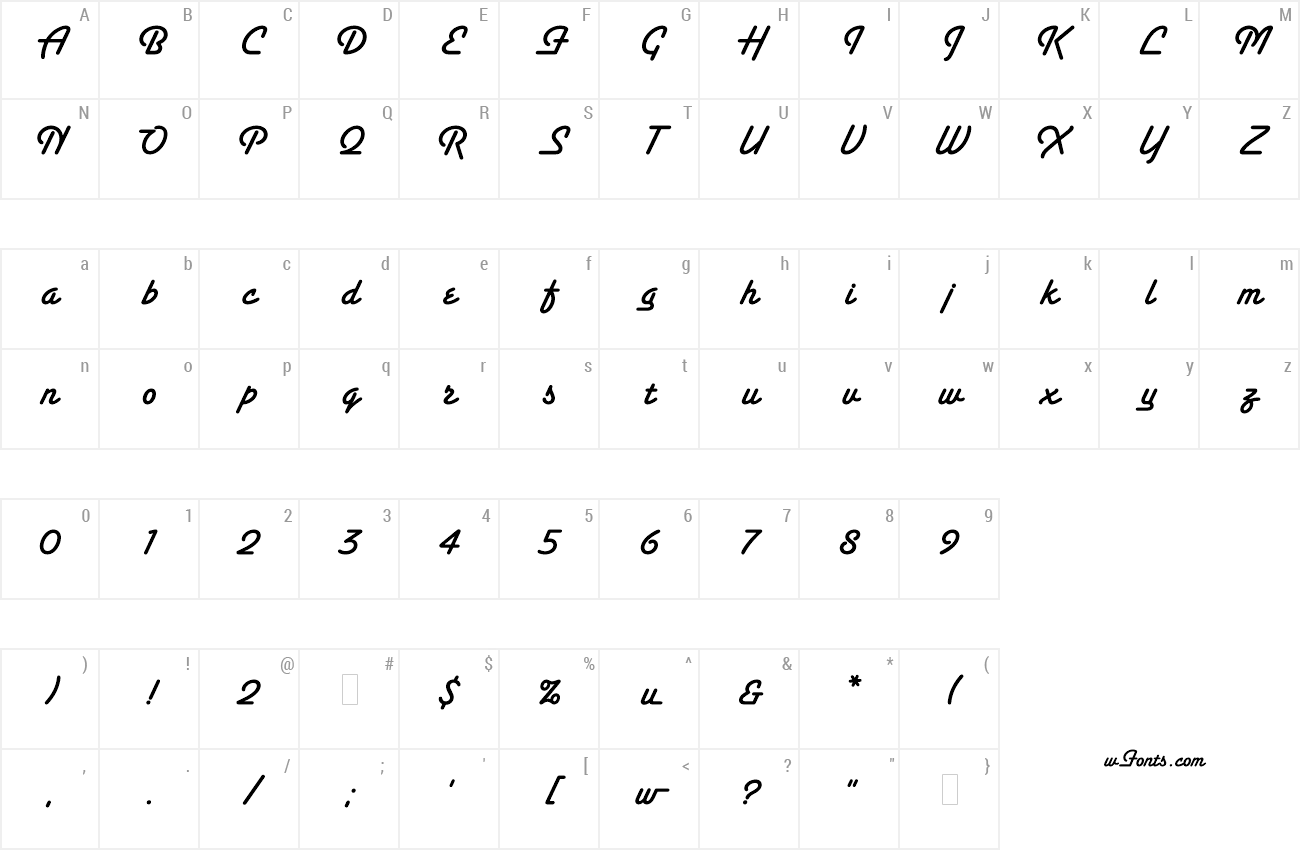
Santa feplainsanta fe plain:1136451254santa fe plain1. Santa fe™ font free download, santa fe™ font, santa fe™ free font. Distinguishing are its script characters and the lower case e, which has the form of a capital e.
Although we have the largest database of fonts, the search for a font from an image gets mixed results like the image above. Also, the santa fe std font is perfect for branding projects, housewares designs, product packaging, or simply as a stylish. The character set covers about 500.
Santa Fe Is A Profonts Script Typeface Family Supplied In The New Opentype Pro Font Format.
Santa fe medium italic font. 64 glyphs / 67 characters. Santa fe™ font free download, santa fe™ font, santa fe™ free font.
The figures are reminiscent of american. Santa fe w01 medium font info. In script > handwritten 21,716 downloads (3 yesterday) 100% free.